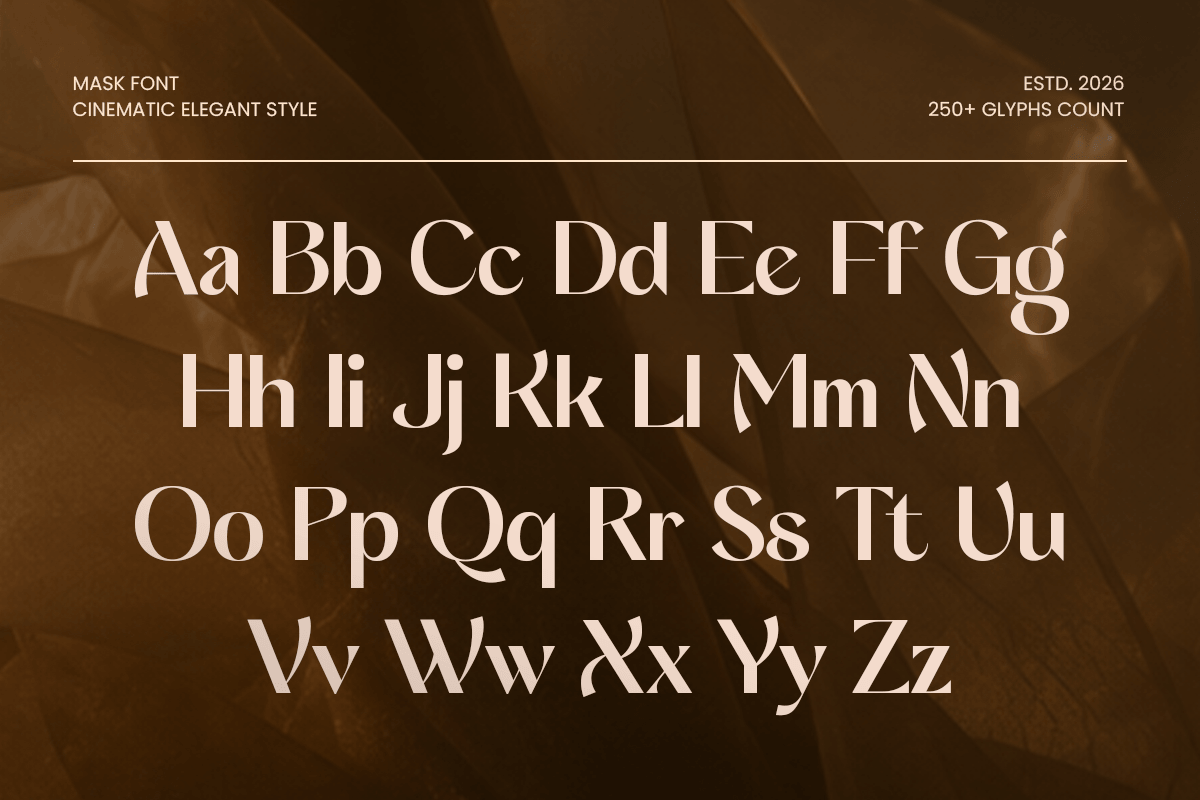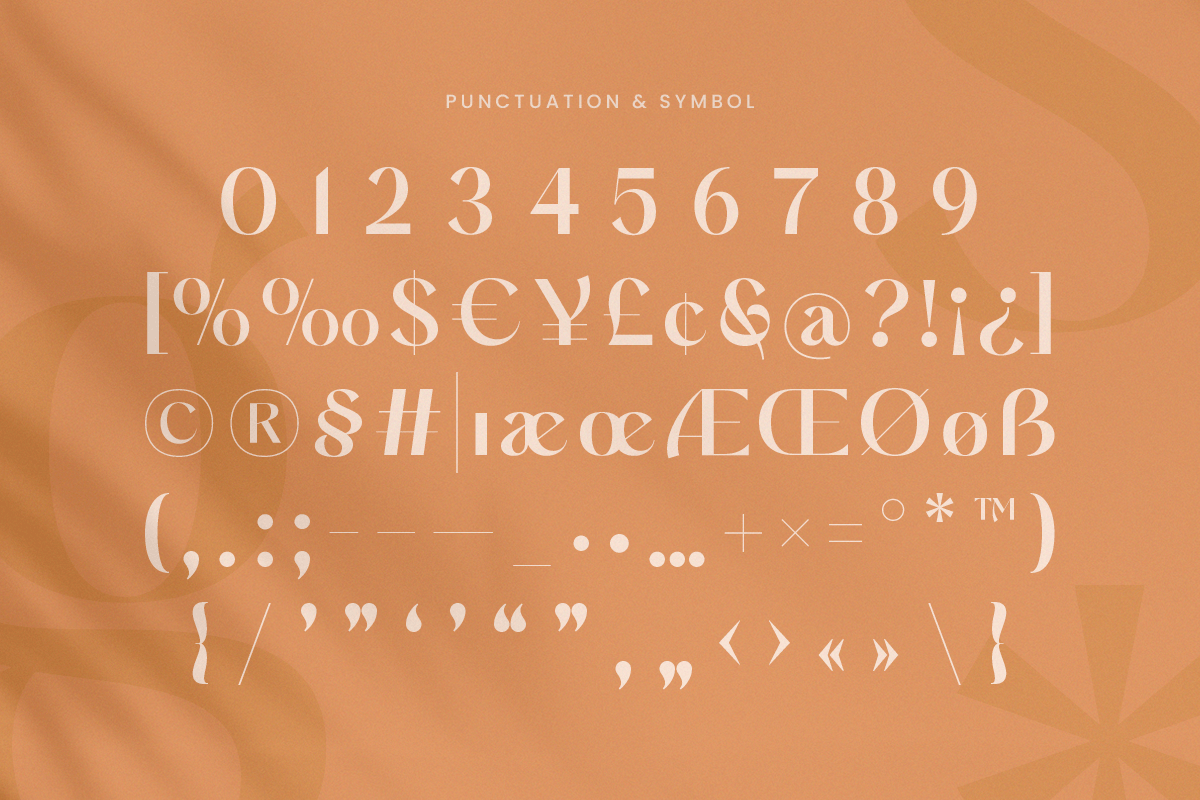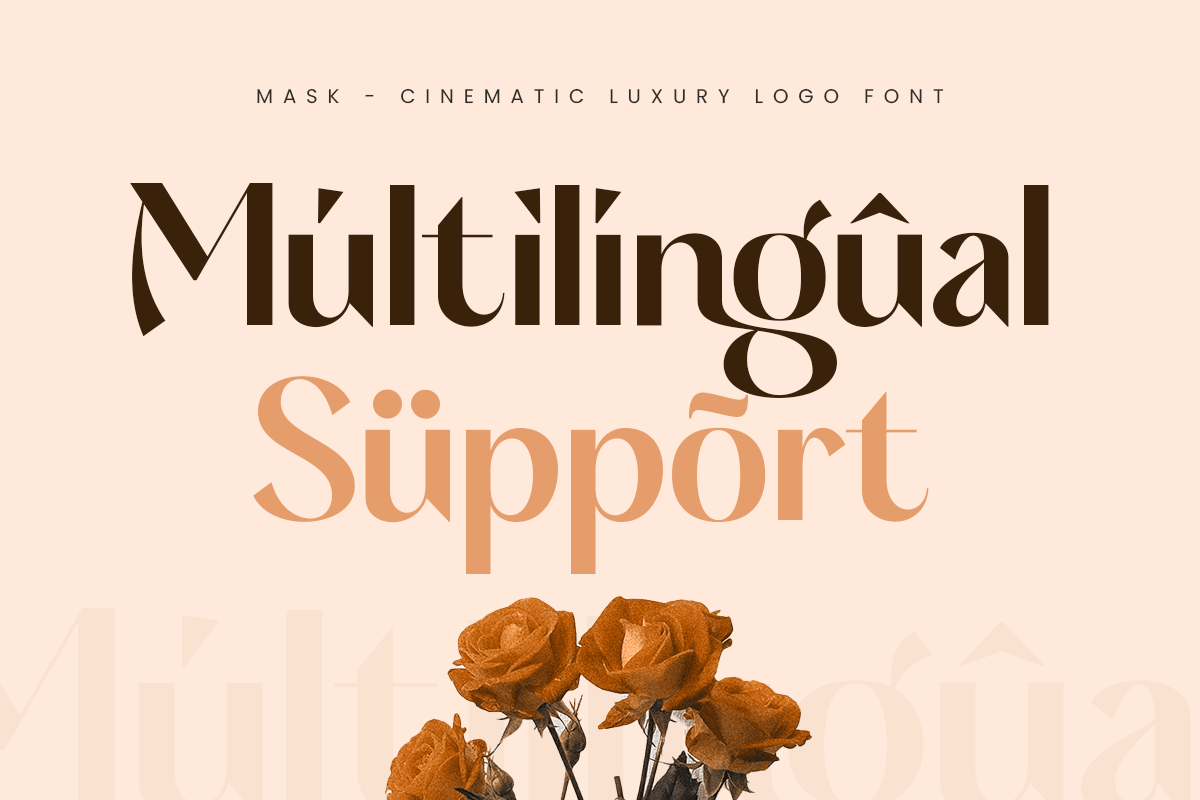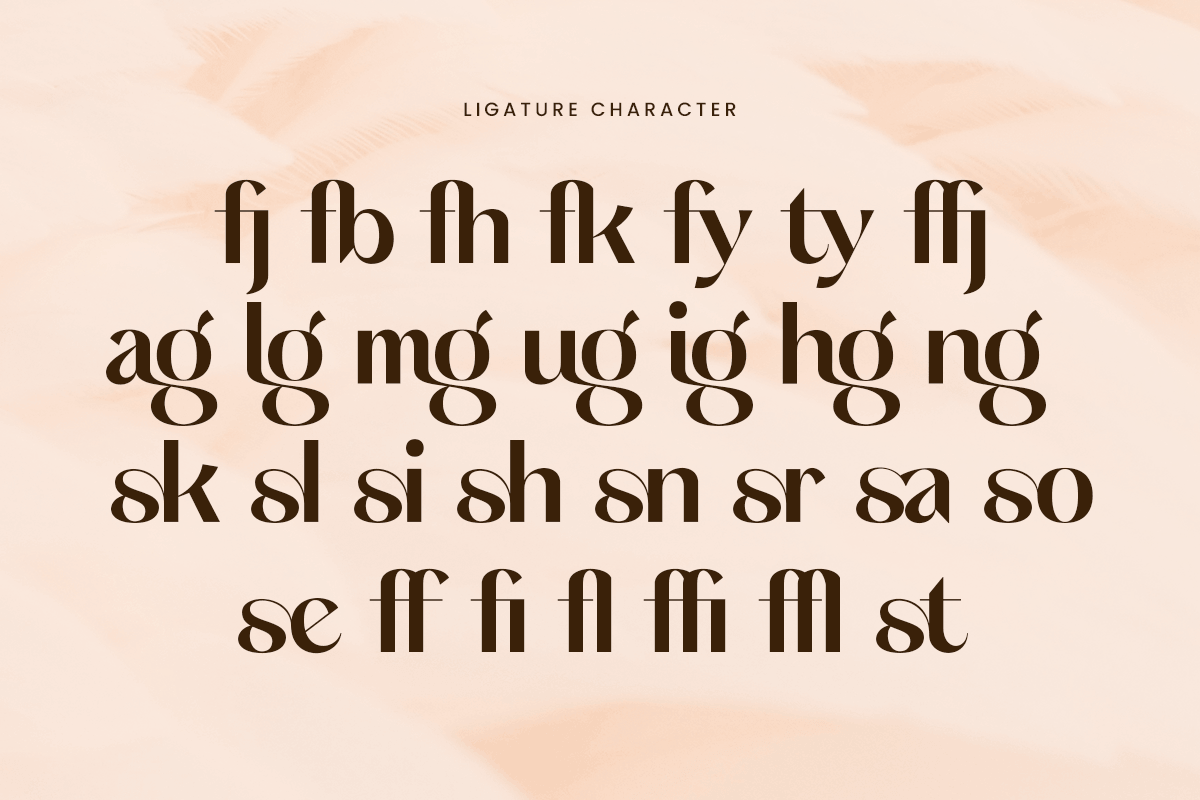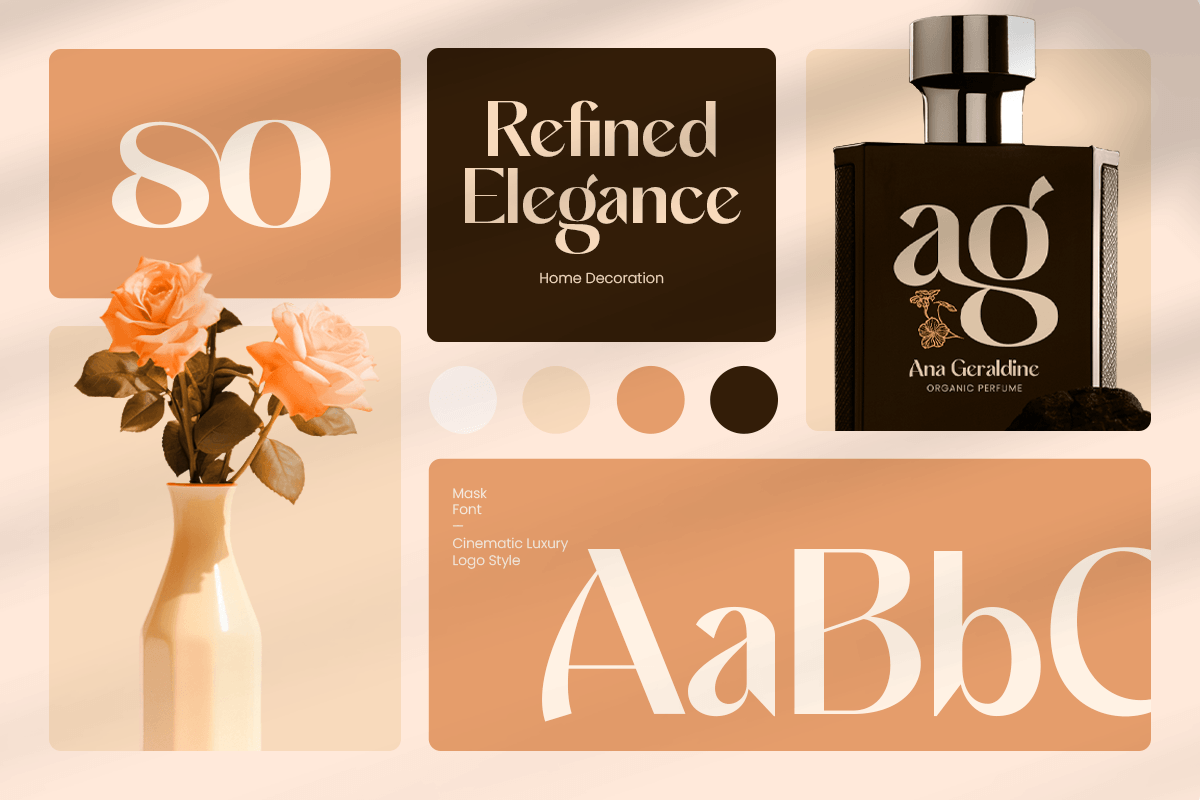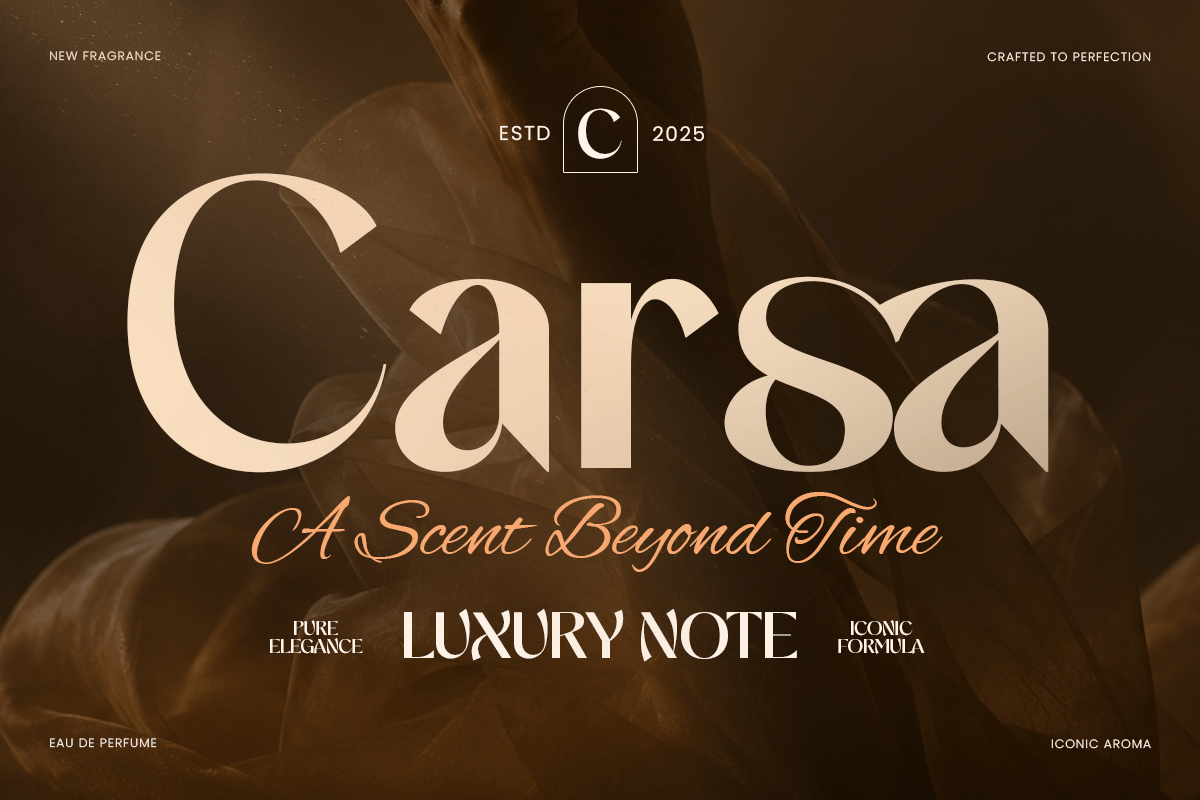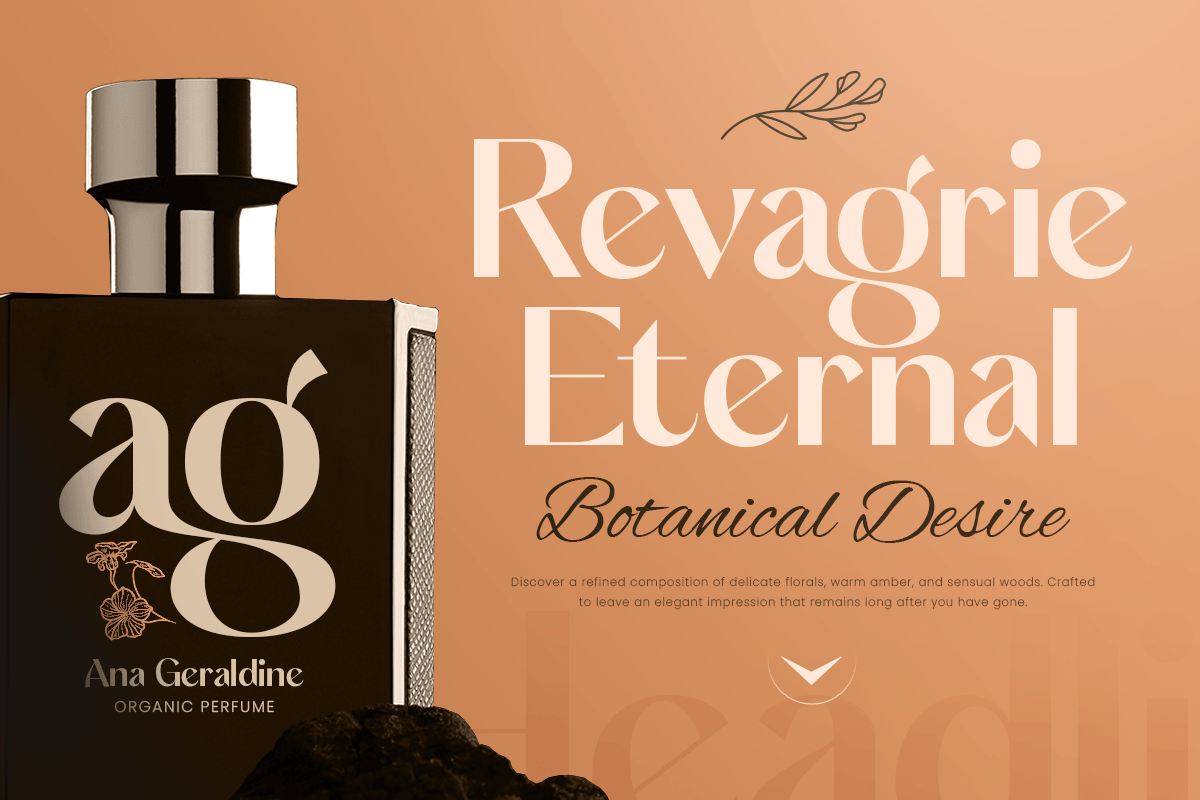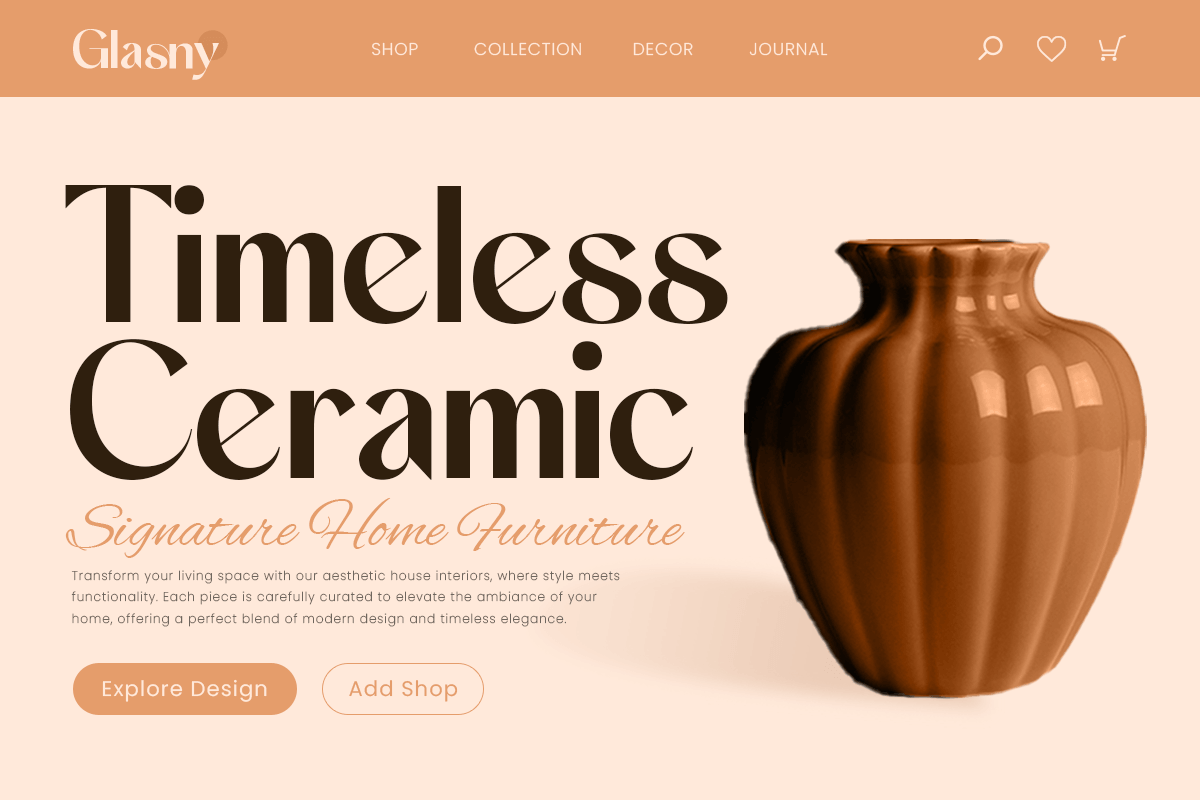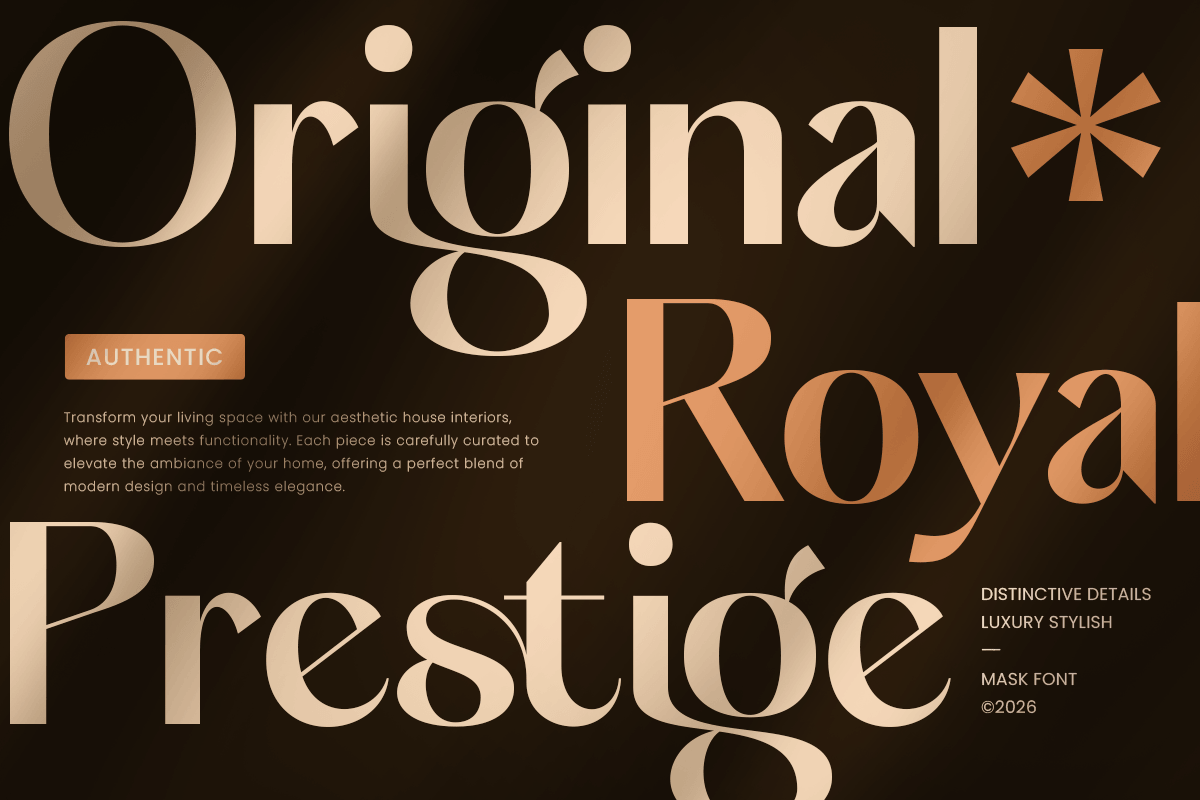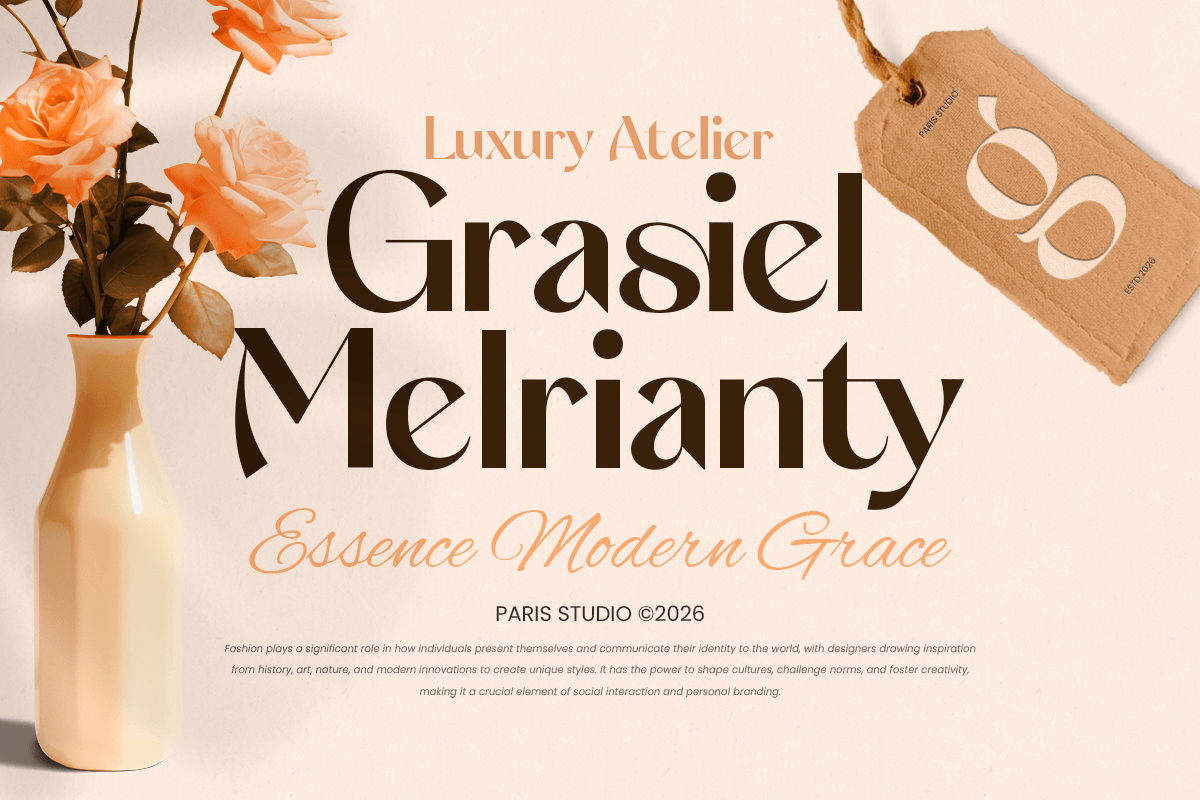
Mask - Cinematic Luxury Font
Mask is a cinematic luxury logo font designed to create a dramatic, elegant, and unforgettable visual identity. With refined letterforms, sophisticated proportions, and a premium cinematic aesthetic, this typeface is perfect for luxury logos, film titles, fashion branding, editorial layouts, packaging, and high-end creative projects.
Inspired by the elegance of cinematic typography and modern luxury design, Mask brings a strong visual presence while maintaining a refined and timeless character. Its stylish structure makes it ideal for creating memorable brand marks, movie-inspired visuals, magazine headlines, boutique identities, and premium product designs.
Whether used for luxury brands, creative studios, fashion labels, wedding designs, or cinematic campaigns, Mask delivers a sophisticated typographic experience across both print and digital media.
Mask – Cinematic Luxury Logo Font Features
- Cinematic-inspired design with elegant luxury character
- Perfect for logos, film titles, branding, editorials, and packaging
- Refined letterforms with premium visual impact
- Ideal for fashion, beauty, entertainment, lifestyle, and luxury brands
- Uppercase, lowercase, numerals, and punctuation included
- OpenType features for enhanced typographic styling
Multilingual support for
Afrikaans, Albanian, Asu, Basque, Bemba, Bena, Breton, Chiga, Cornish, Dutch, English, Estonian, Filipino, Finnish, Friulian, Galician, German, Gusii, Indonesian, Irish, Italian, Kabuverdianu, Kalenjin, Kinyarwanda, Luo, Luxembourgish, Luyia, Machame, Makhuwa-Meetto, Makonde, Malagasy, Manx, Morisyen, North Ndebele, Nyankole, Oromo, Portuguese, Quechua, Romansh, Rombo, Rundi, Rwa, Samburu, Sango, Sangu, Scottish Gaelic, Sena, Shambala, Shona, Soga, Somali, Spanish, Swahili, Swedish, Swiss, and more.